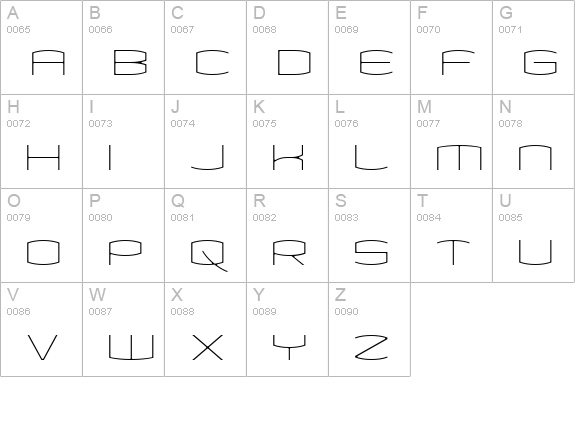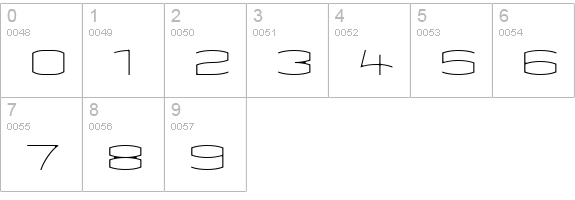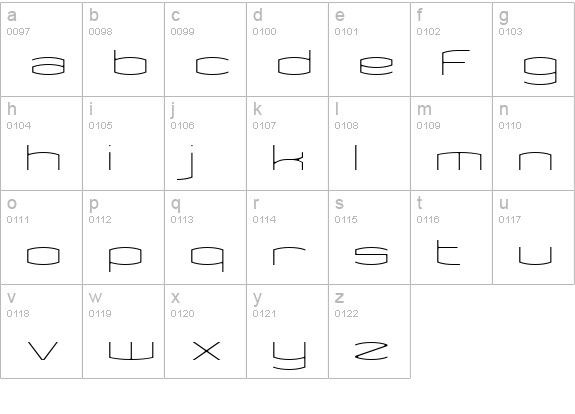
Kameleon Thin Font Details
Kameleon Thin is a delicate, low-contrast variant in the Kameleon typeface family \xE2\x80\x94 well suited to fashion editorial, minimal branding, and high-contrast display.
Kameleon Thin font is a sleek and modern typeface that exudes sophistication and elegance. With its clean lines and contemporary style, this font is perfect for projects that require a touch of refinement. The Thin variant of the Kameleon font family offers a delicate and refined look, making it ideal for use in a variety of design contexts. What's even better is that Kameleon Thin font is available for free download at FontsMarket.com. You can easily access this stylish font and enhance your projects with its unique charm. Whether you're working on branding, advertising, invitations, or any other creative endeavor, Kameleon Thin font is sure to elevate your designs with its minimalist yet impactful aesthetic. Download it now and add a touch of sophistication to your next project!